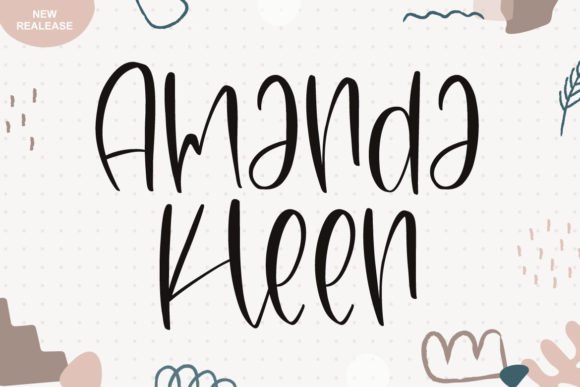
Introduction to Amanda Kleen Font
Amanda Kleen is a chic, refined script font that emanates sophistication and elegance.
Its stylish alternates and ligatures make this font the perfect match for any project .
Key Features of Amanda Kleen Font
Why Choose Amanda Kleen Font?
Amanda Kleen Font offers exceptional quality and versatility, making it a valuable addition to your design toolkit. Whether you’re creating for personal projects or commercial use, Amanda Kleen Font delivers professional results.